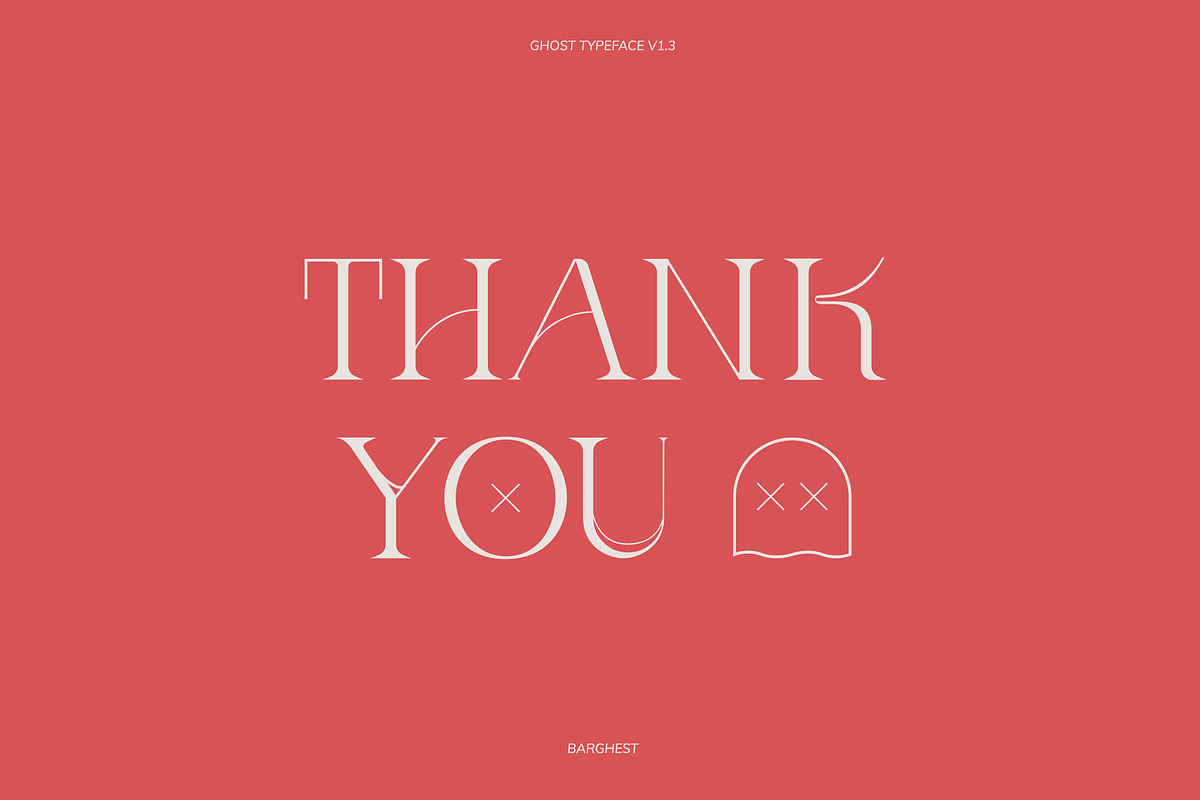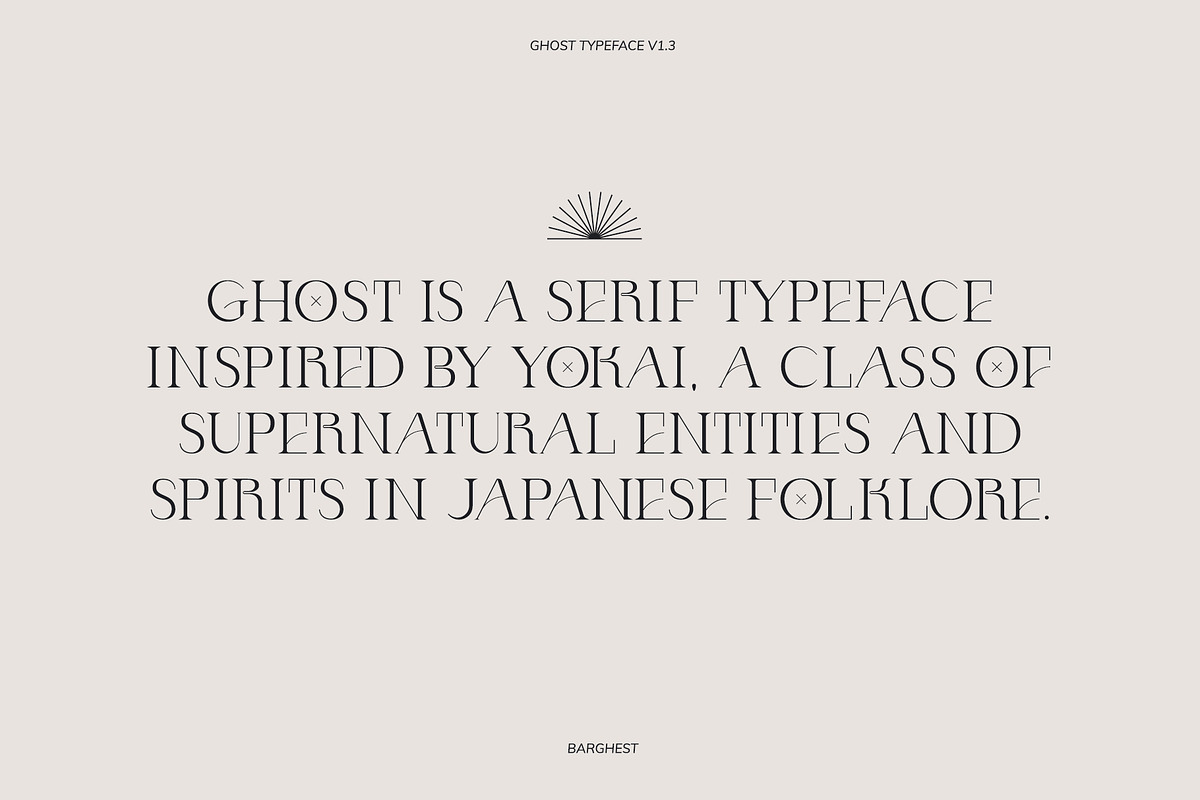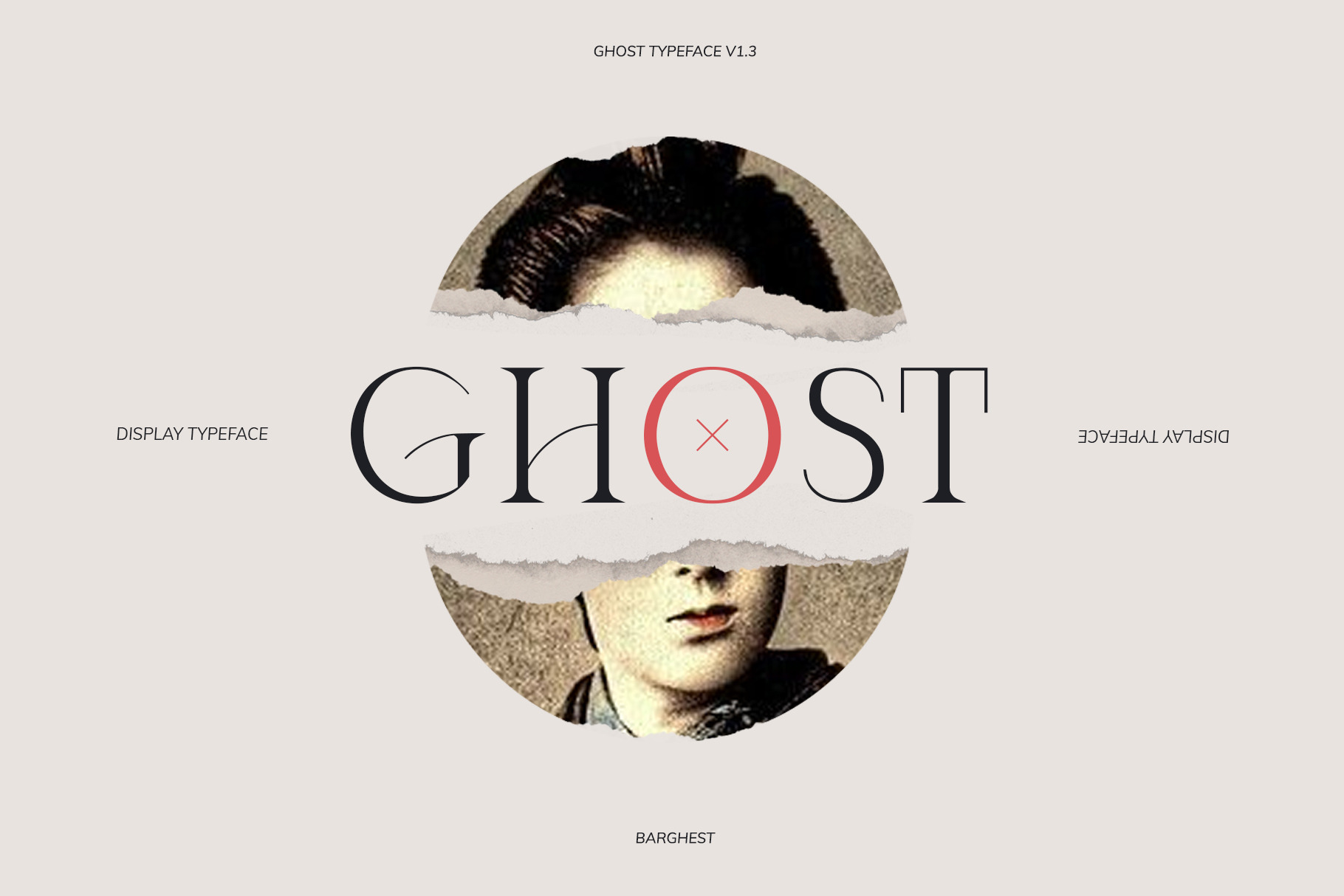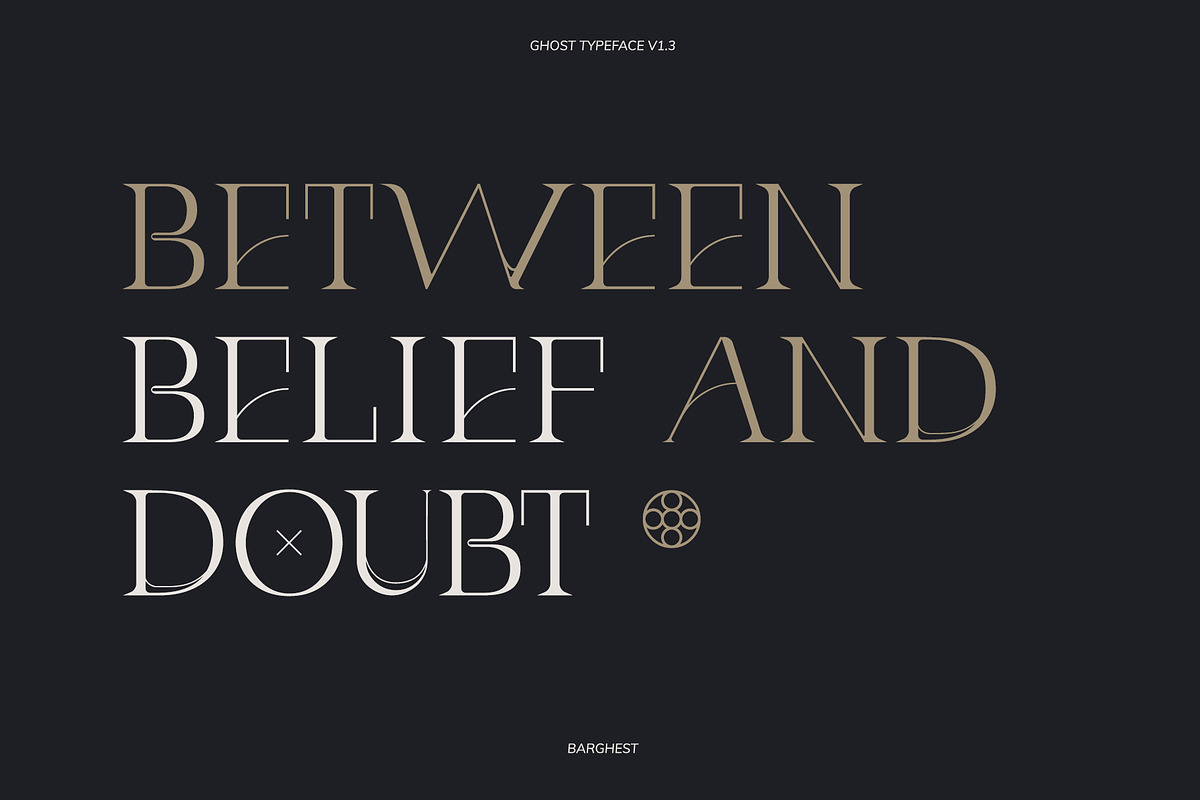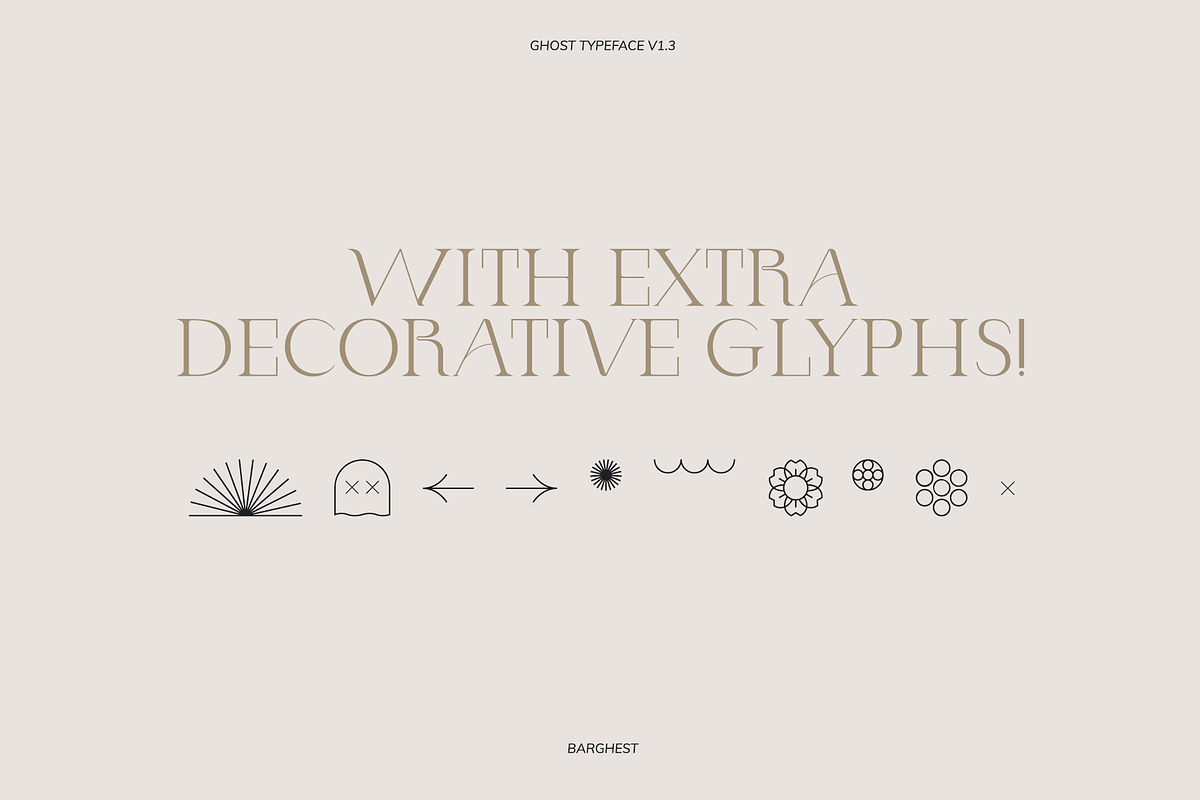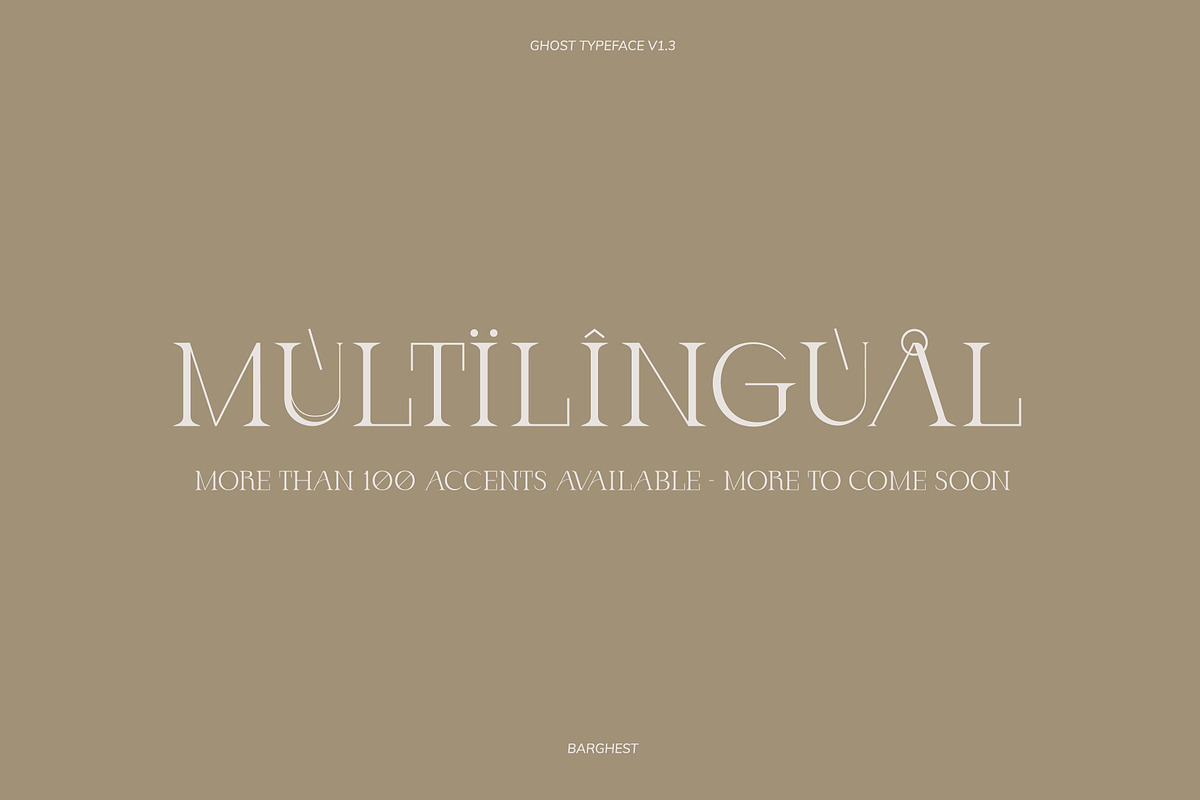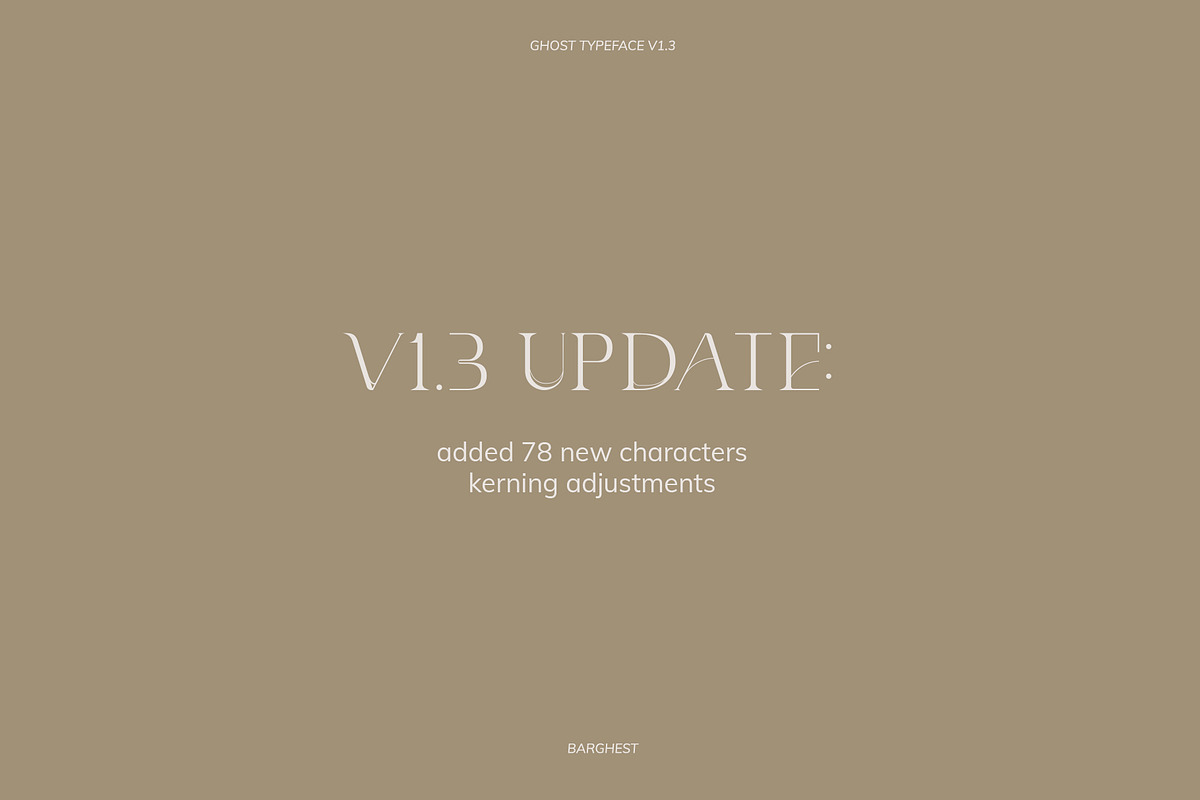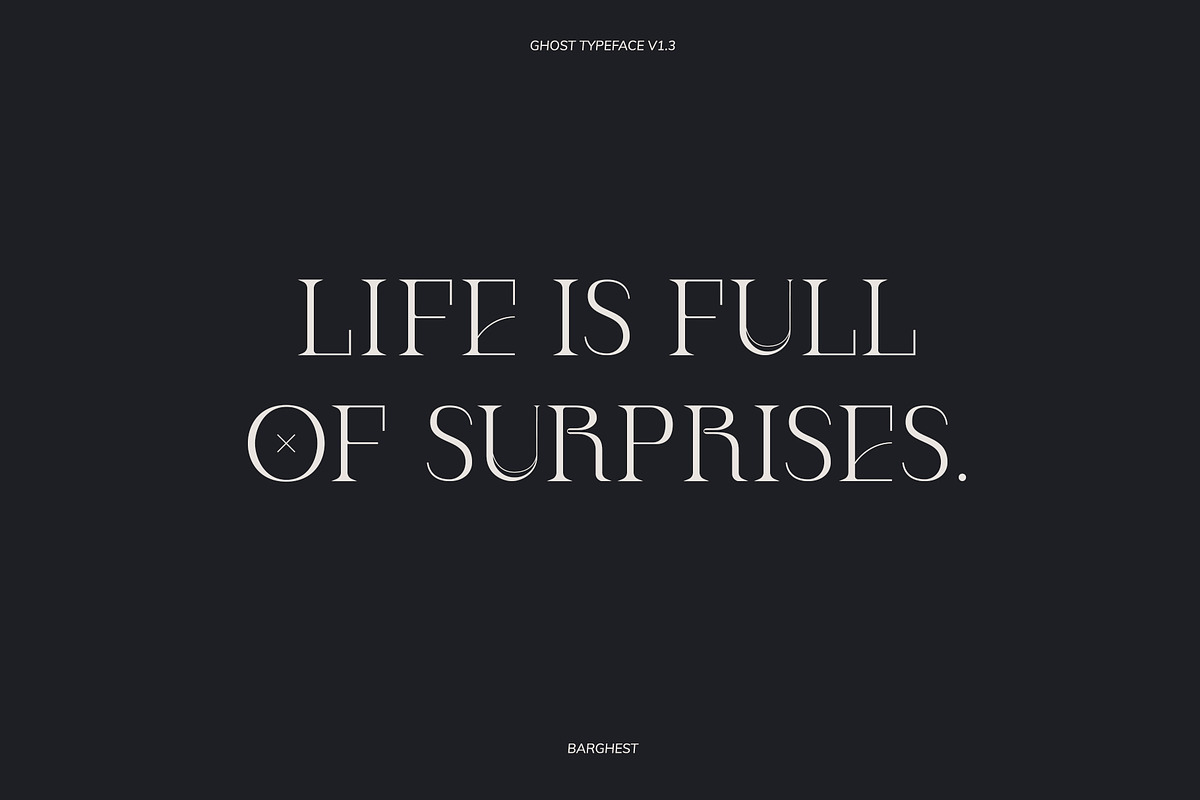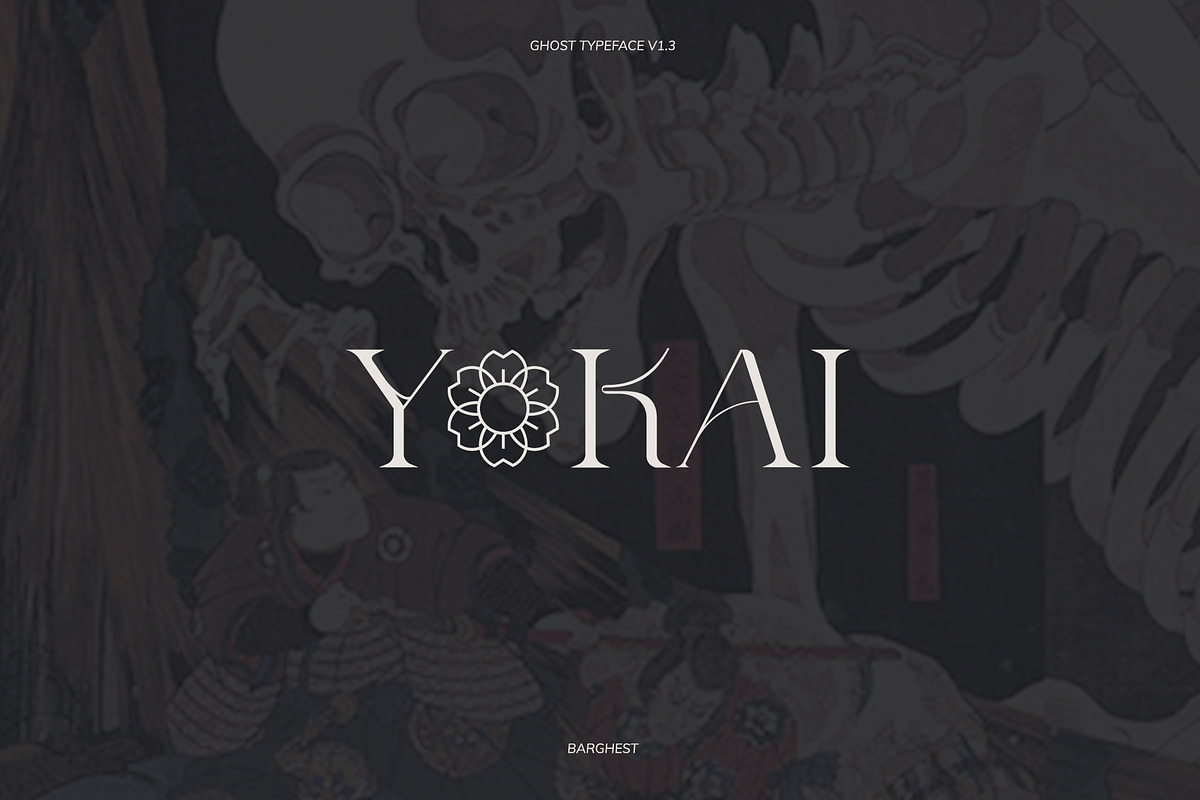
Ghost Display Typeface
Ghost is a serif typeface inspired by Yokai, a class of supernatural entities and spirits in Japanese folklore. Version 1.3 is now available with 245 characters including a few decorative characters and support for some languages!